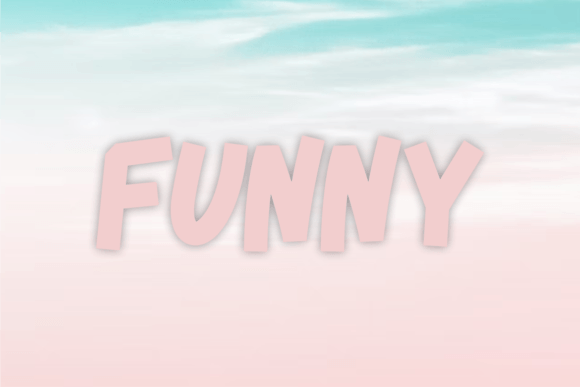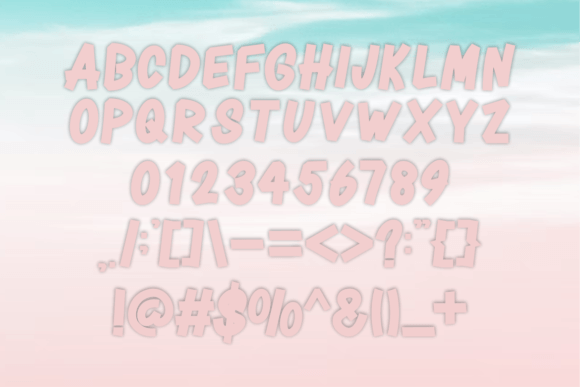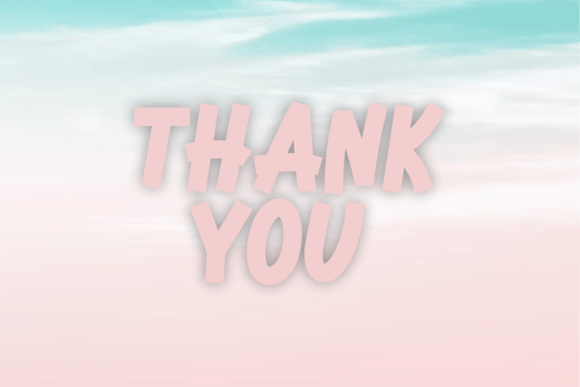
Introducing Cruste Font: Elevate Your Designs with Elegance and Modernity
In the world of typography, a font can make or break a design. For designers and crafters looking for a bold, yet elegant and modern sans serif font, Cruste Font is an exceptional choice. This versatile font is perfectly suited for a wide variety of projects, ranging from signatures and stationery to logos, wedding designs, typography quotes, magazine or book covers, website headers, clothing, branding, packaging design, and more.
The Cruste Font Advantage
Cruste Font stands out with its bold sans serif design, exuding a sense of beauty, classiness, elegance, and modernity. Its clean lines and contemporary look make it an ideal choice for designers aiming to create a lasting impression. Whether you’re working on a luxury brand’s logo or a stylish wedding invitation, Cruste Font brings a touch of sophistication and refinement to your projects.
One of the key benefits of Cruste Font is its versatility. Its bold yet elegant appearance makes it suitable for a wide range of applications. Here are some of the areas where Cruste Font truly shines:
- Signatures and Stationery: Add a touch of elegance to your business cards, letters, and other correspondence.
- Logos and Branding: Create a memorable brand identity with a bold and modern logo.
- Wedding Designs: Make your wedding invitations, programs, and decorations truly special with a classy font.
- Typography Quotes: Highlight inspirational quotes with a stylish and contemporary look.
- Magazine or Book Covers: Grab the attention of your audience with a bold and elegant font.
- Website Headers: Elevate your website’s design with a modern and sophisticated header.
- Clothing and Apparel: Design stylish and trendy clothing with a font that speaks elegance.
- Packaging Design: Stand out on store shelves with packaging that exudes class and modernity.
Why Choose Cruste Font?
Choosing Cruste Font for your design projects comes with numerous advantages. Here are a few reasons why designers and crafters prefer Cruste:
- Ease of Readability: Despite its bold appearance, Cruste Font remains highly readable, making it perfect for both digital and print designs.
- High-Quality Design: Crafted with attention to detail, Cruste Font offers a high-quality design that reflects professionalism.
- Flexibility: Use Cruste Font across various platforms and mediums, from web design to print materials.
- Timeless Appeal: Its classic yet modern design ensures that your work will remain stylish for years to come.
How to Use Cruste Font Effectively
To make the most out of Cruste Font, consider the following tips:
- Pair with Complementary Fonts: Combine Cruste Font with other fonts that complement its bold and modern style.
- Adjust Font Sizes: Experiment with different font sizes to create visual hierarchy and emphasis.
- Play with Colors: While Cruste Font looks great in black and white, don’t hesitate to try it out with different colors to match your brand or design theme.
Cruste Font is a powerful tool for designers and crafters looking to add a touch of elegance and modernity to their projects. Its bold sans serif design, versatility, and ease of readability make it an excellent choice for a wide range of applications. Whether you’re working on a logo, website header, or packaging design, Cruste Font is sure to elevate your designs and make them stand out.